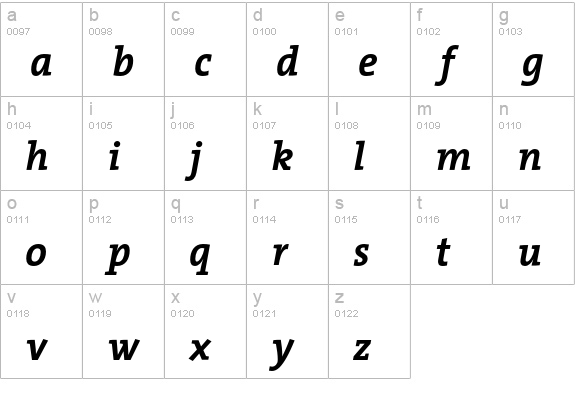
TheSerif Bold Italic Font Details
TheSerif Bold Italic is a strong, high-contrast, italic variant in the TheSerif typeface family \xE2\x80\x94 well suited to headlines, attention-grabbing titles, and strong calls-to-action.
Introducing TheSerif Bold Italic, a font that exudes sophistication and elegance with every stroke. This remarkable typeface combines the boldness of its weight with the graceful slant of its italic style, creating a harmonious balance that is both eye-catching and professional. Designed to make a statement, TheSerif Bold Italic is perfect for projects that demand attention. Whether it's a bold headline, a striking logo, or a powerful marketing campaign, this font will captivate your audience and leave a lasting impression. Its strong presence on the page commands attention and adds a touch of authority to any design. TheSerif Bold Italic is not only visually stunning, but it also offers versatility and functionality. Its clean and legible letterforms ensure readability even at smaller sizes, making it suitable for various applications, from print to digital media. The careful attention to detail in each character ensures a seamless reading experience, enhancing the overall visual appeal of your content. What makes TheSerif Bold Italic even more enticing is that it is available for free download at FontsMarket.com. This means that you can effortlessly enhance your designs without breaking the bank. With just a few clicks, you can access this exquisite font and bring a touch of sophistication to your projects. So why wait? Elevate your designs with TheSerif Bold Italic and make a statement that leaves a lasting impression. Download it for free at FontsMarket.com and unlock the potential to create visually stunning and impactful designs.